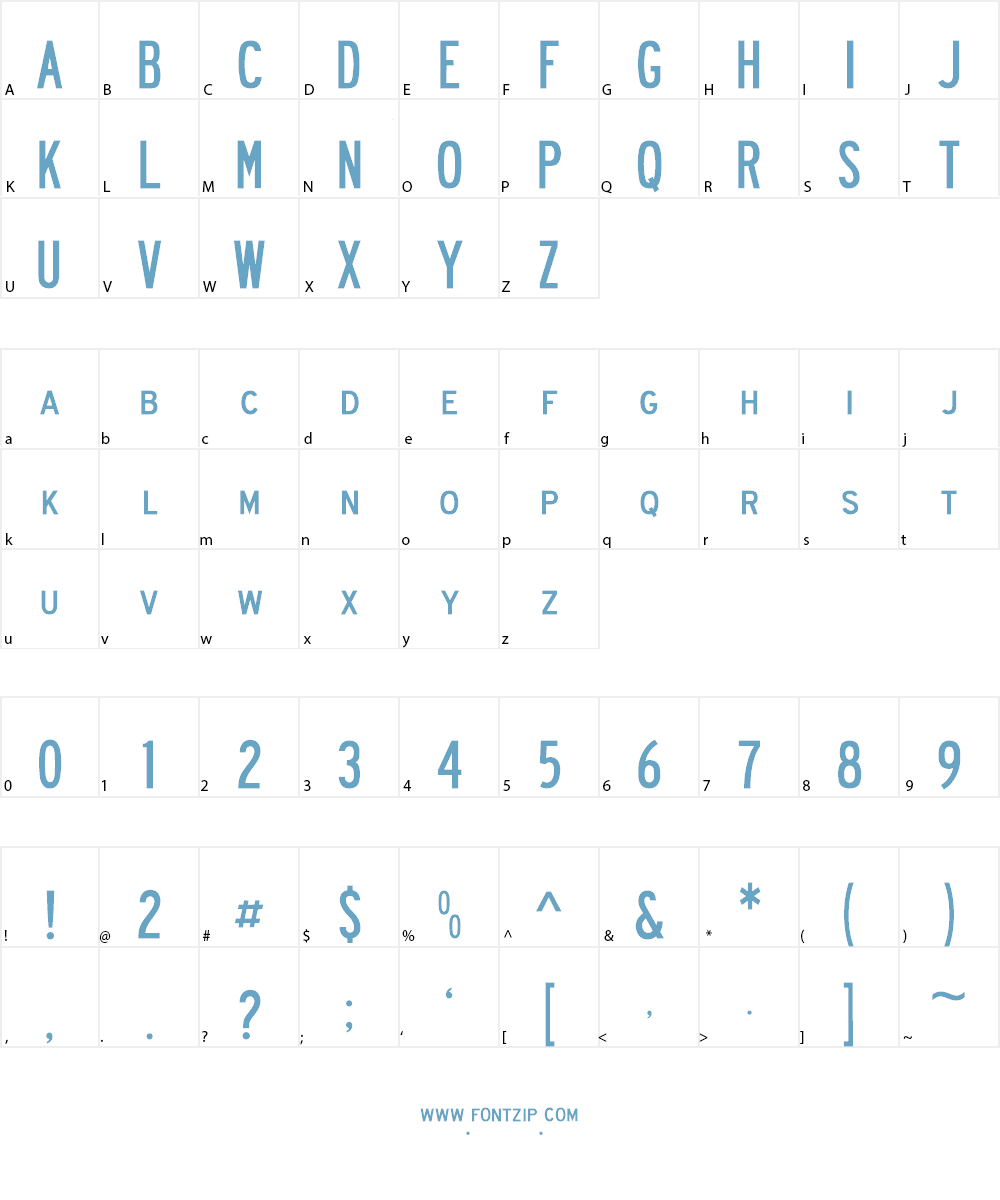
Roadway is based on U.S. highway lettering observed on New York street signs. Two weights of highway lettering would often be used on the same sign, condensed for the main name (Roadway uppercase) and a half-size regular superscript (Roadway lowercase) for ‘road’ or ’street’.